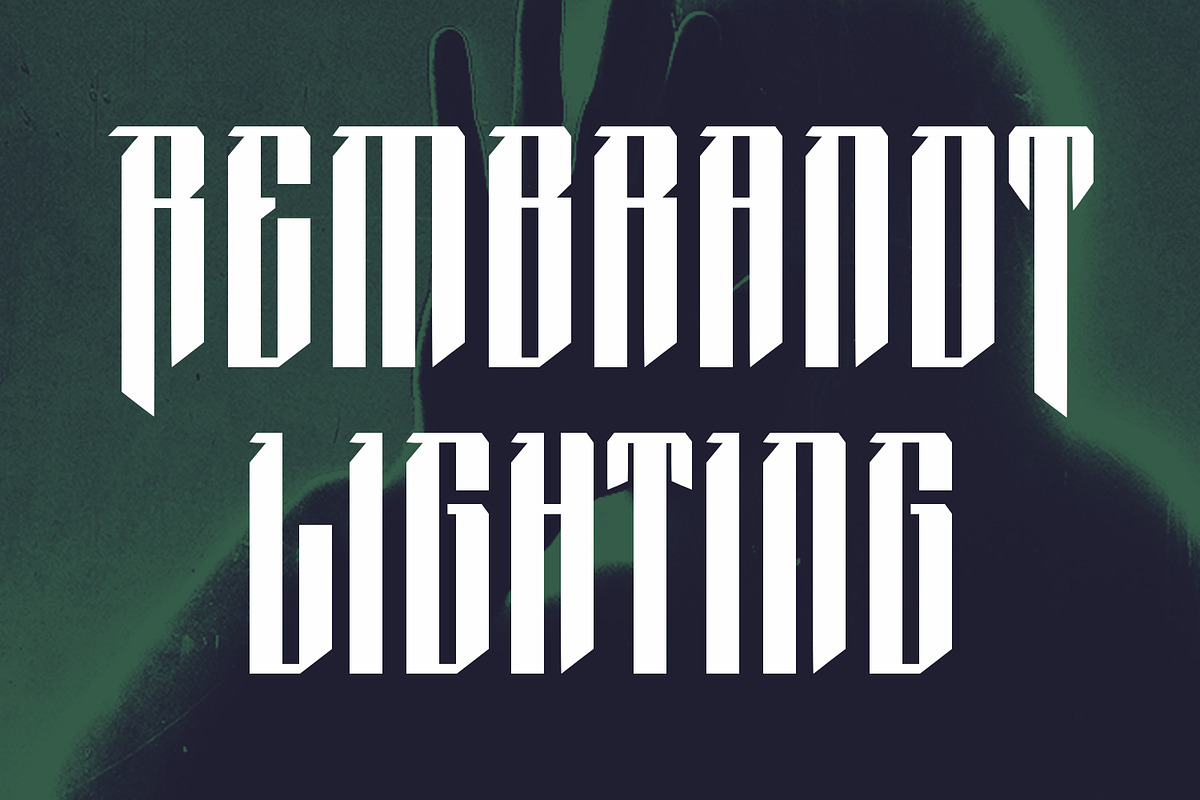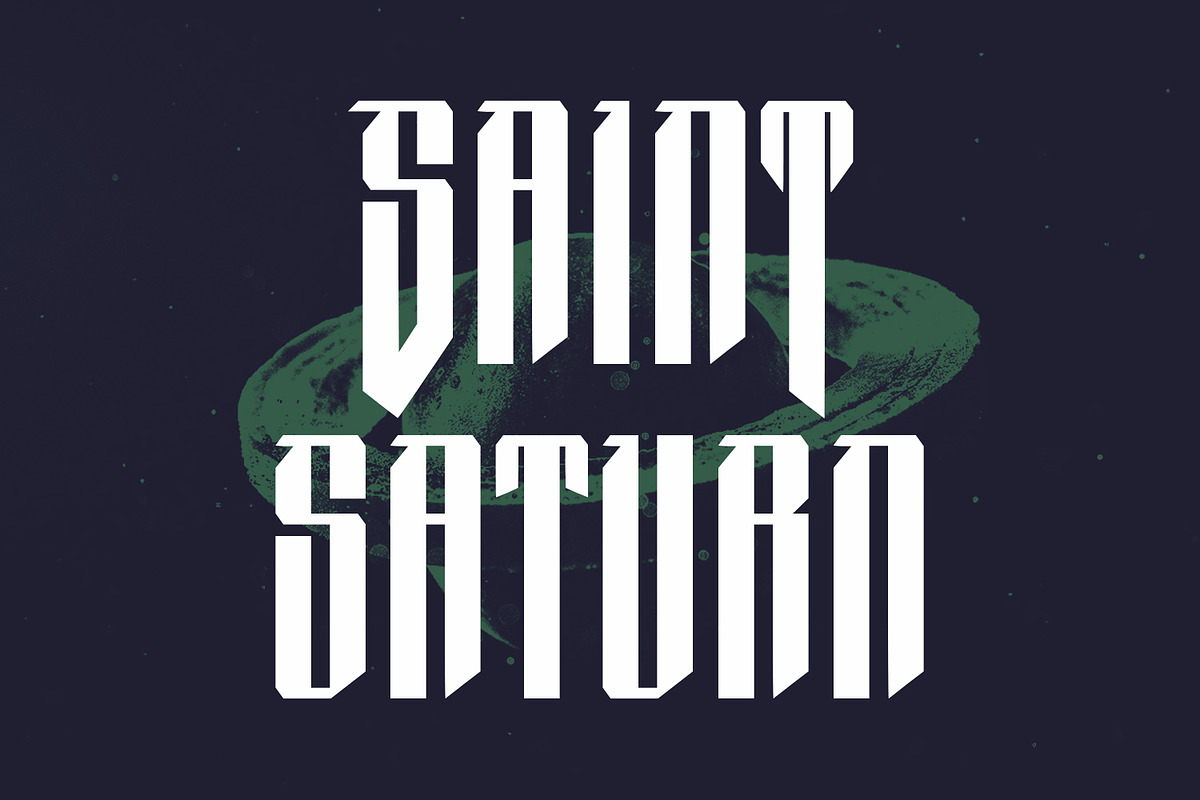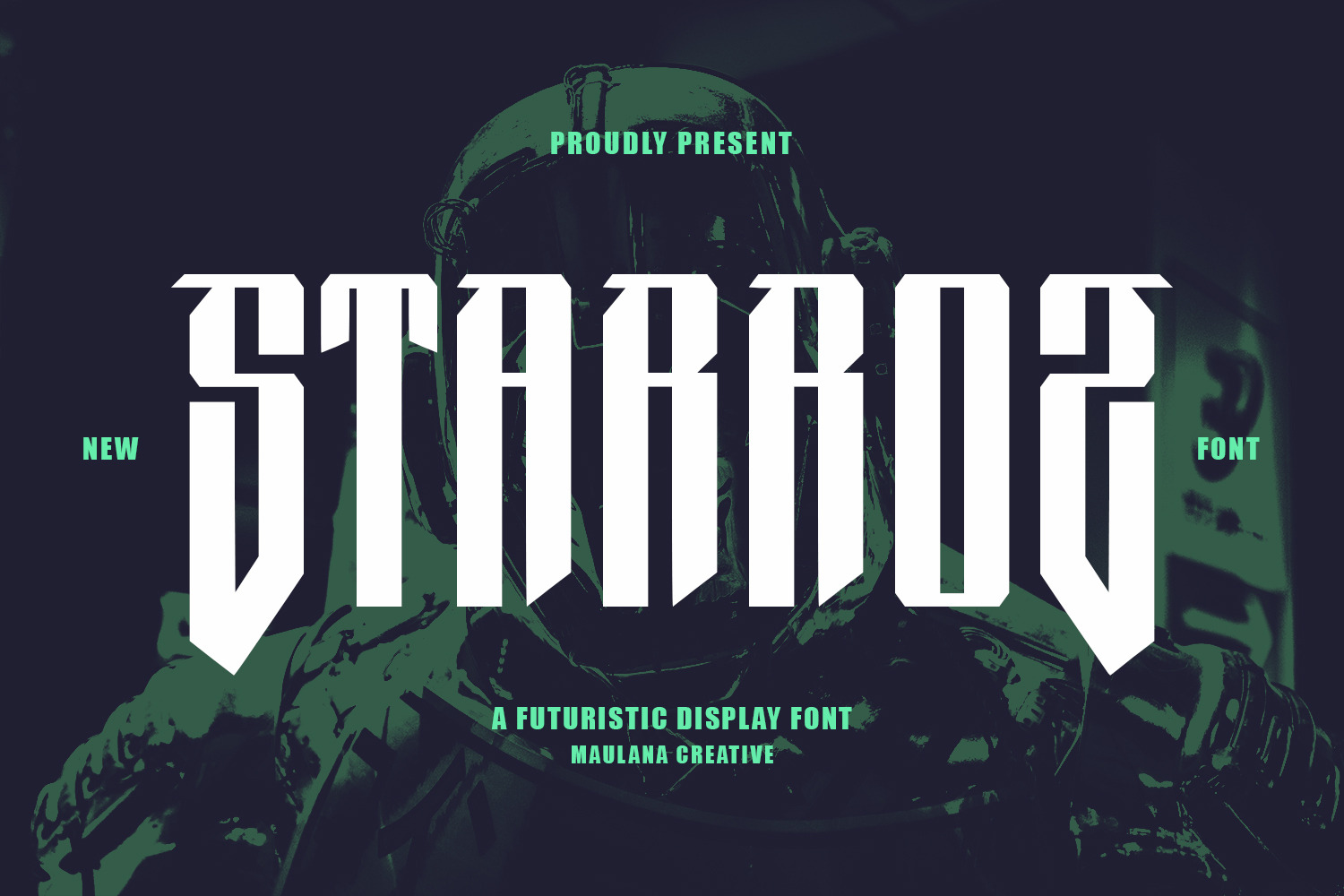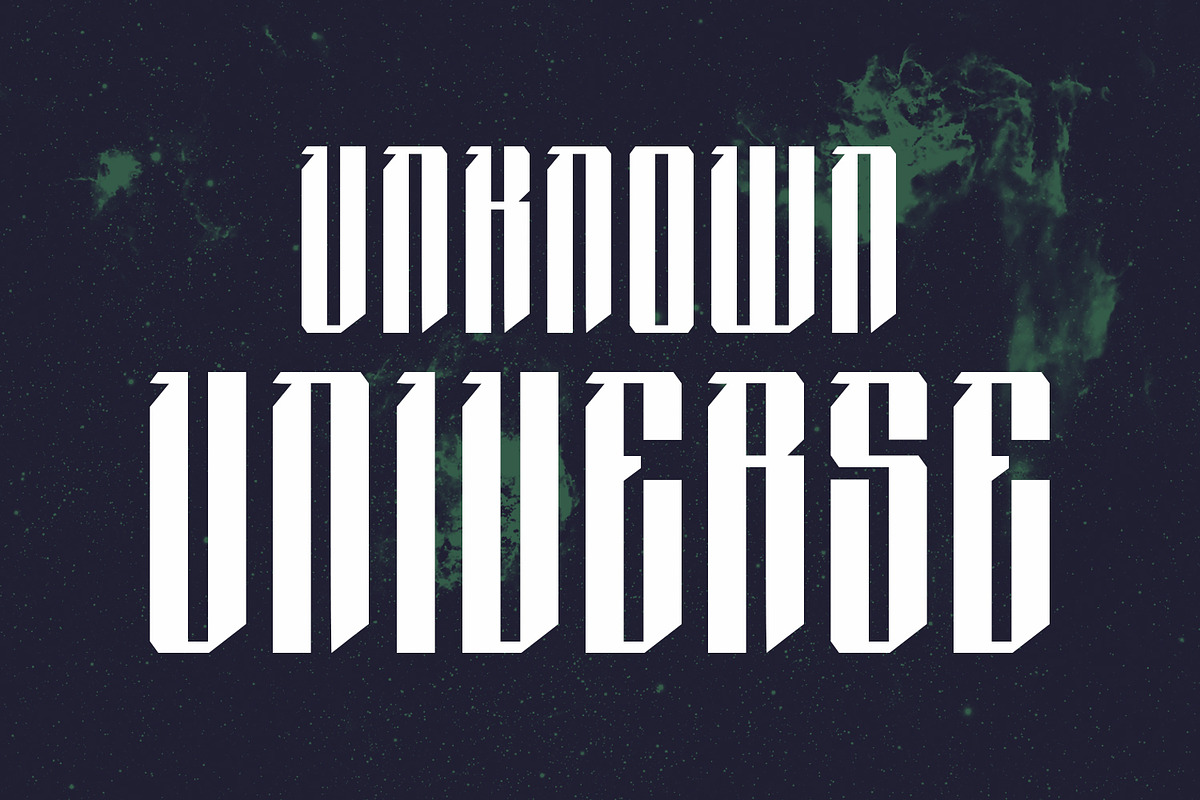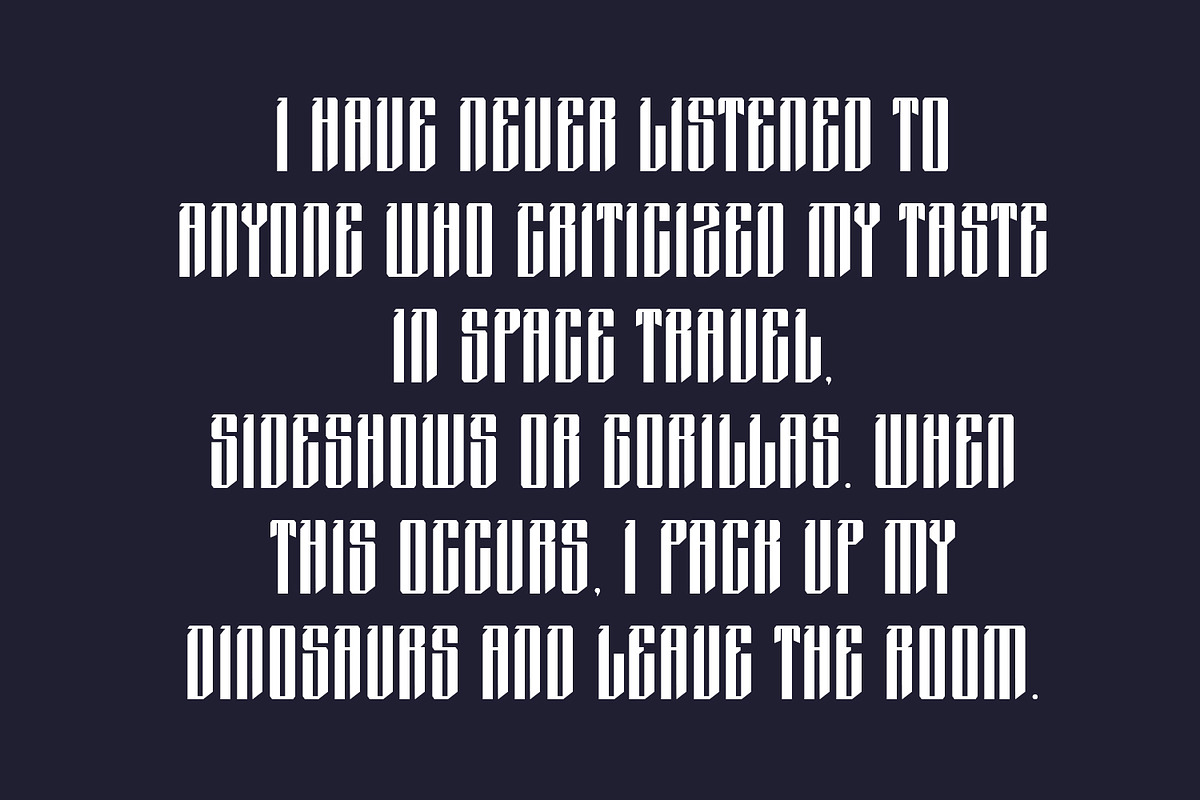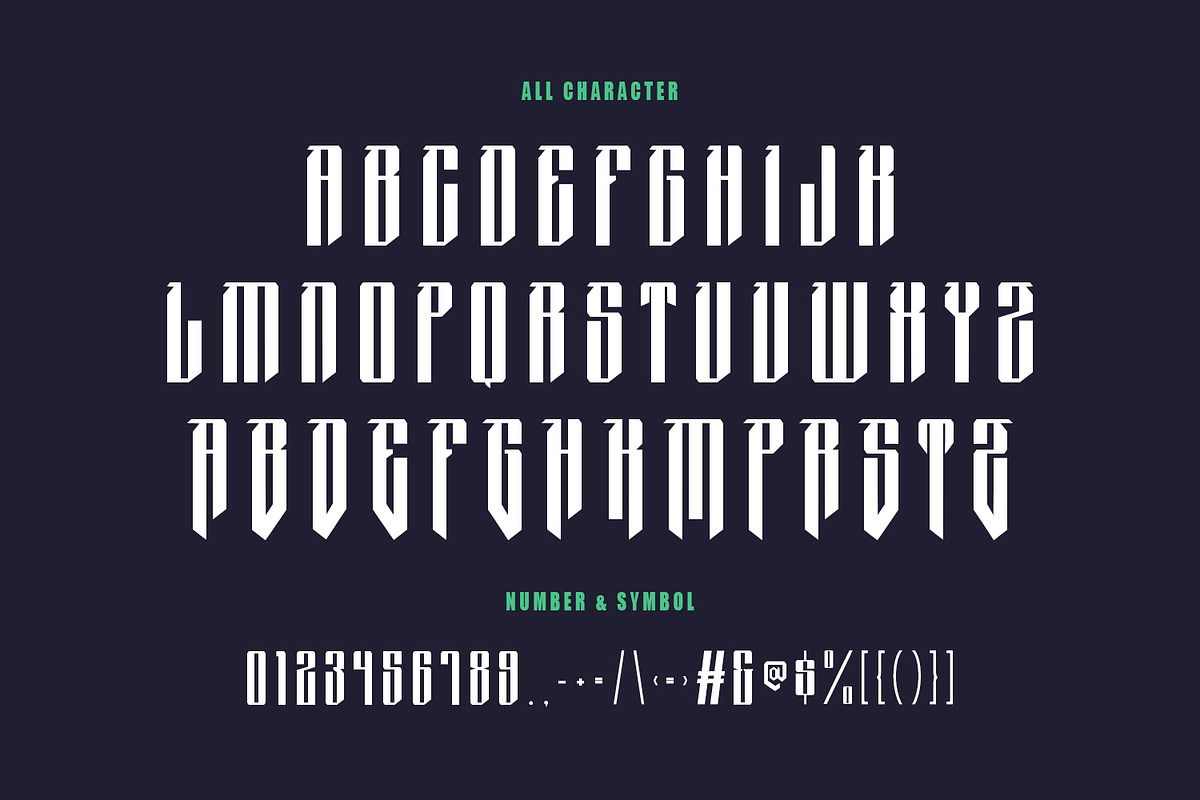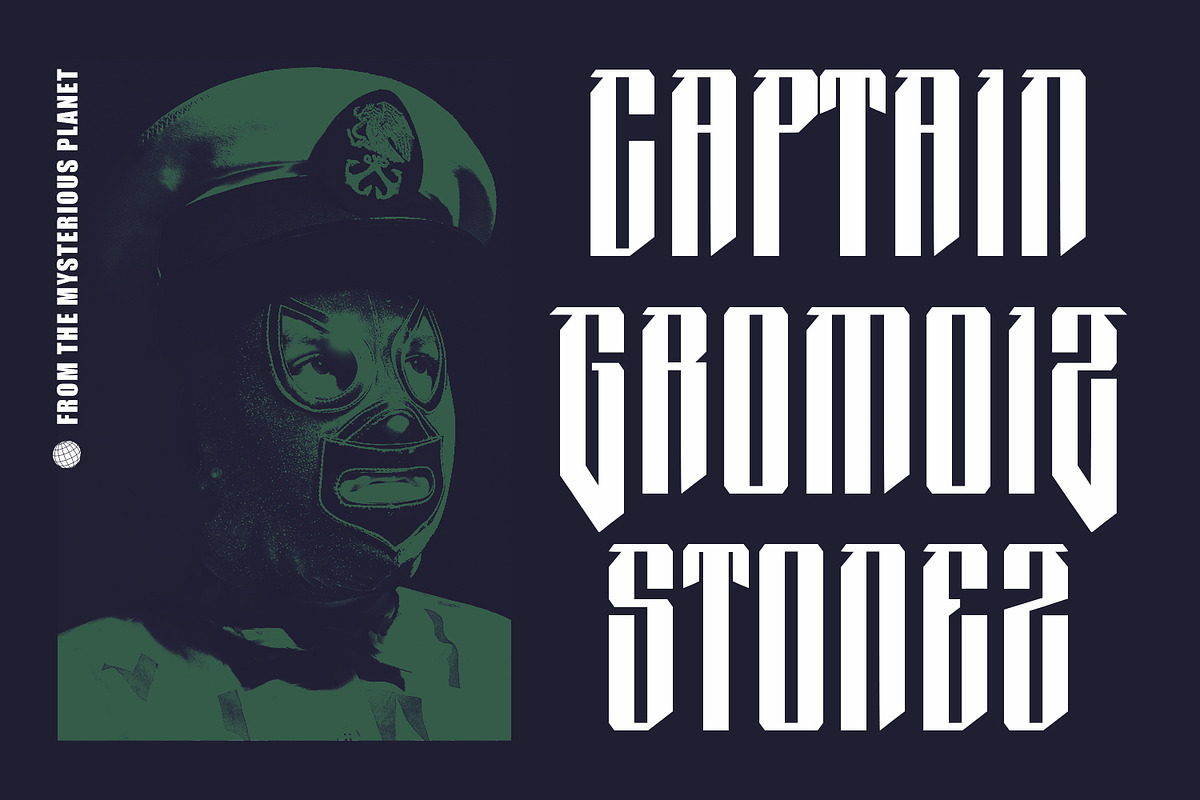
Starroz Futuristic Display Font
Starroz is a futuristic minimal sans serif display font. With bold stroke, fun character with some of alternate. To give you an extra creative work, Starroz Display font support multilingual more than 100+ language. This font is good for logo design, Social media, Movie Titles, Books Titles, a short text even a long text letter and good for your secondary text font with script or signature typeface. Make a stunning work with Starroz futuristic minimal sans serif display font.